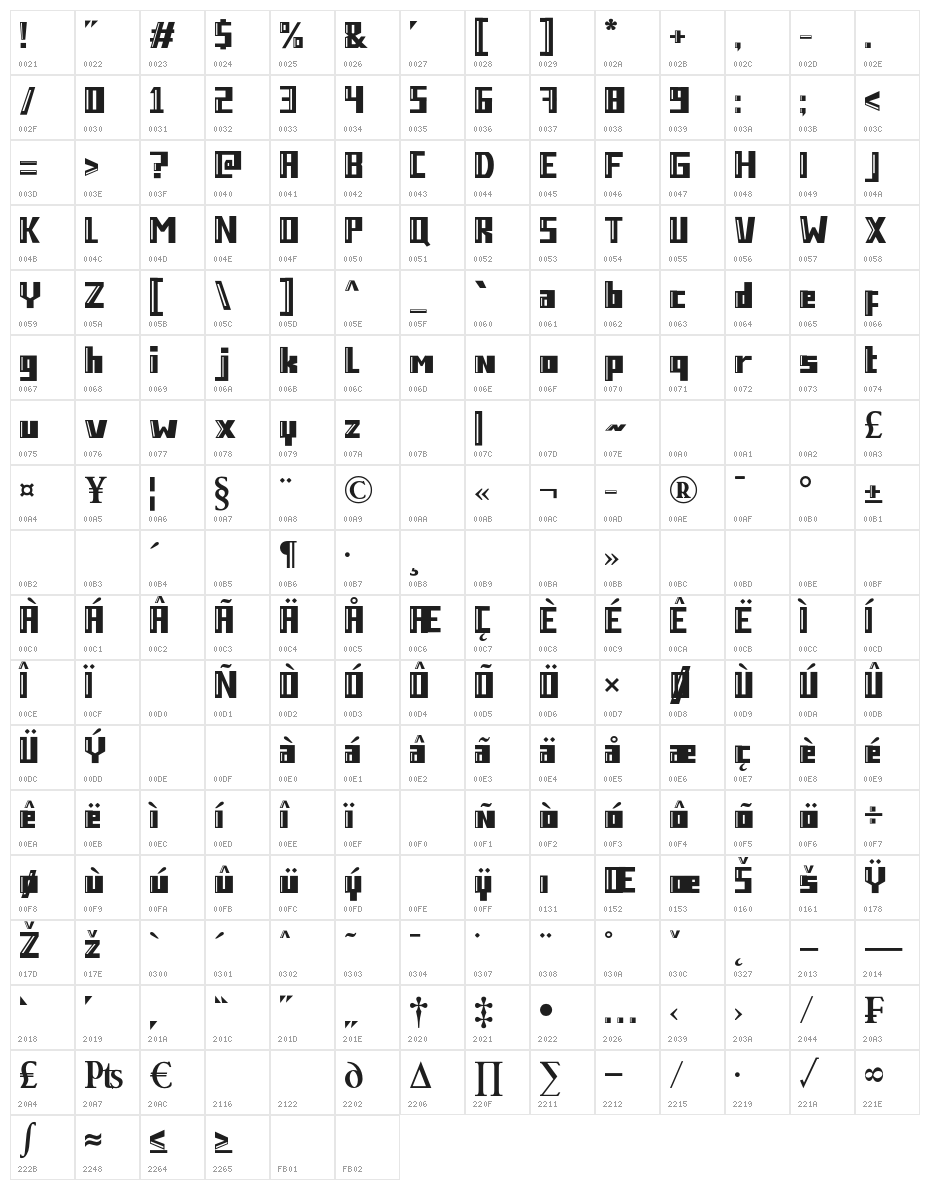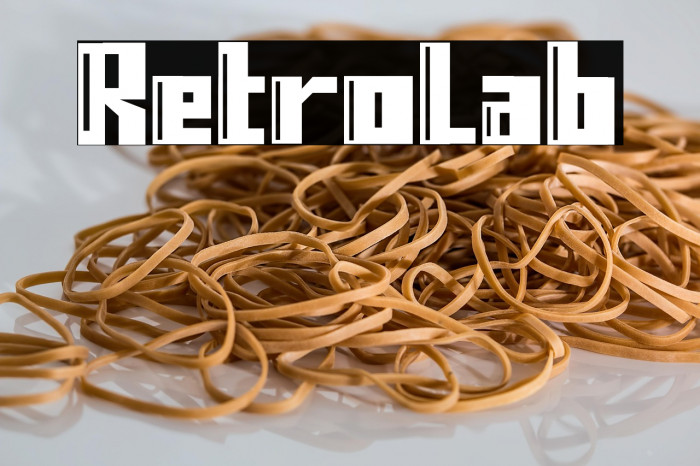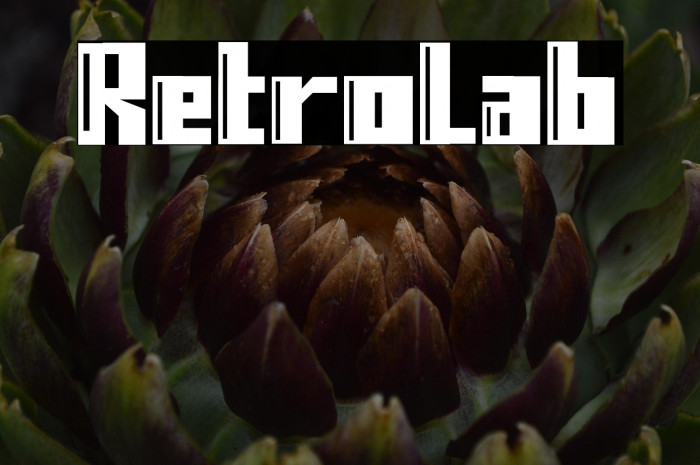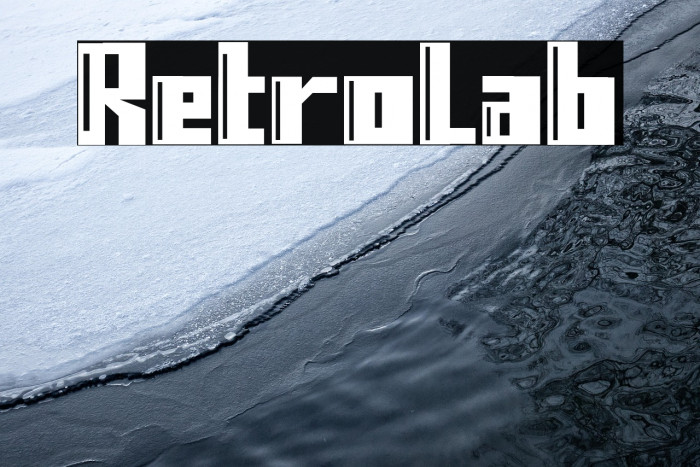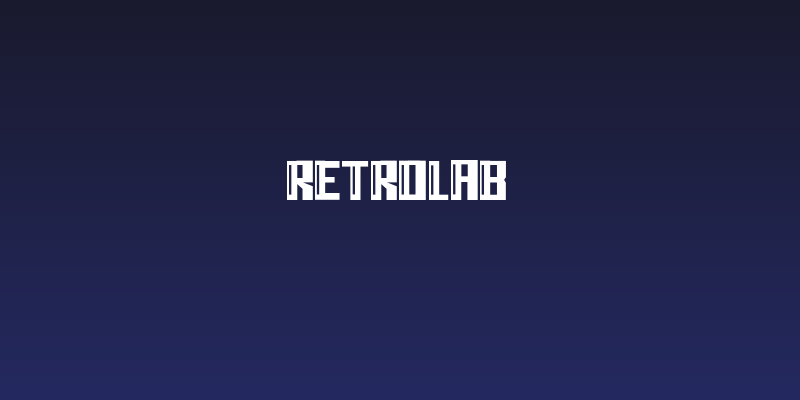
Retrolab Font
Retrolab Description
This font features a bold, geometric design with a distinct retro flair. The characters are constructed with sharp angles and straight lines, giving them a futuristic and industrial appearance. The uppercase letters are particularly striking, with a blocky and robust form that commands attention. The lowercase letters maintain the same geometric style, ensuring consistency across the typeface. Numbers and special characters are equally bold and angular, making them stand out in any design. This font is ideal for projects that require a strong, vintage aesthetic with a modern twist.
| Overall Style | Retro, Industrial |
| Proposed Projects | Ideal for retro-themed posters, branding, album covers, and video game graphics. |